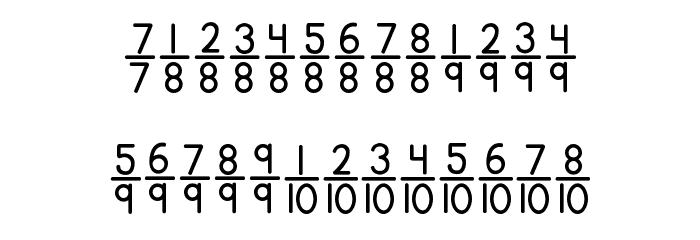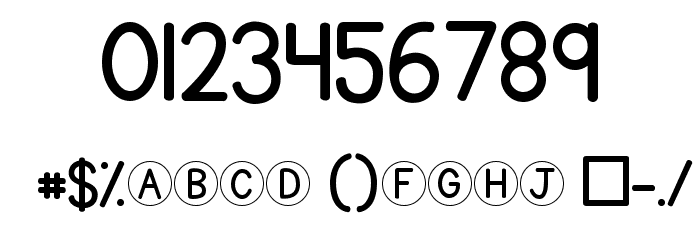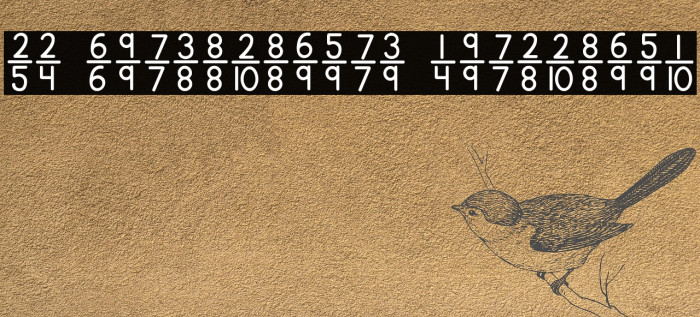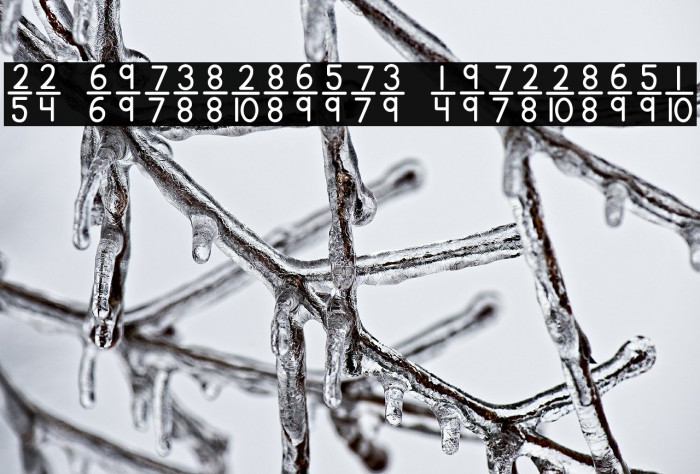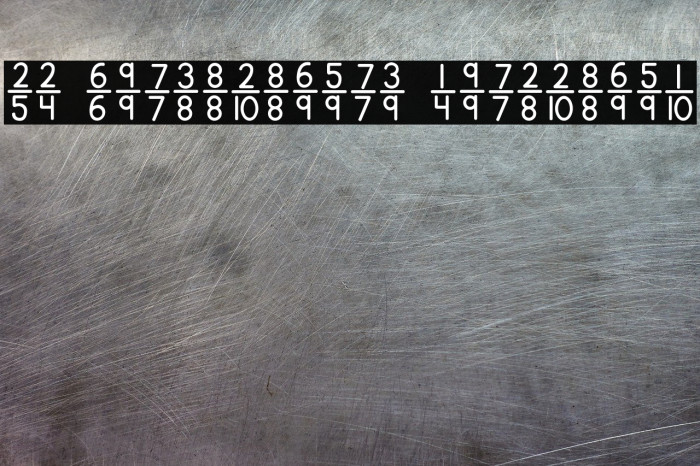
KG Traditional Fractions Font
This font features a clean and modern design with rounded edges and a uniform stroke width, giving it a friendly and approachable appearance. The numerals are prominently displayed, with a focus on fractions, where each fraction is neatly aligned with a horizontal line separating the numerator and denominator. The characters are well-spaced, ensuring readability and clarity. The font includes a variety of special characters and symbols, such as currency signs and punctuation marks, all maintaining the same rounded and consistent style. This makes it versatile for various applications, especially where numerical data and fractions are frequently used.
A modern, rounded font with a focus on fractions and clear numerals.
- Proposed Projects: Ideal for educational materials, mathematical documents, and any project requiring clear representation of fractions.
- Use Case: Educational materials, mathematical documents, digital interfaces.